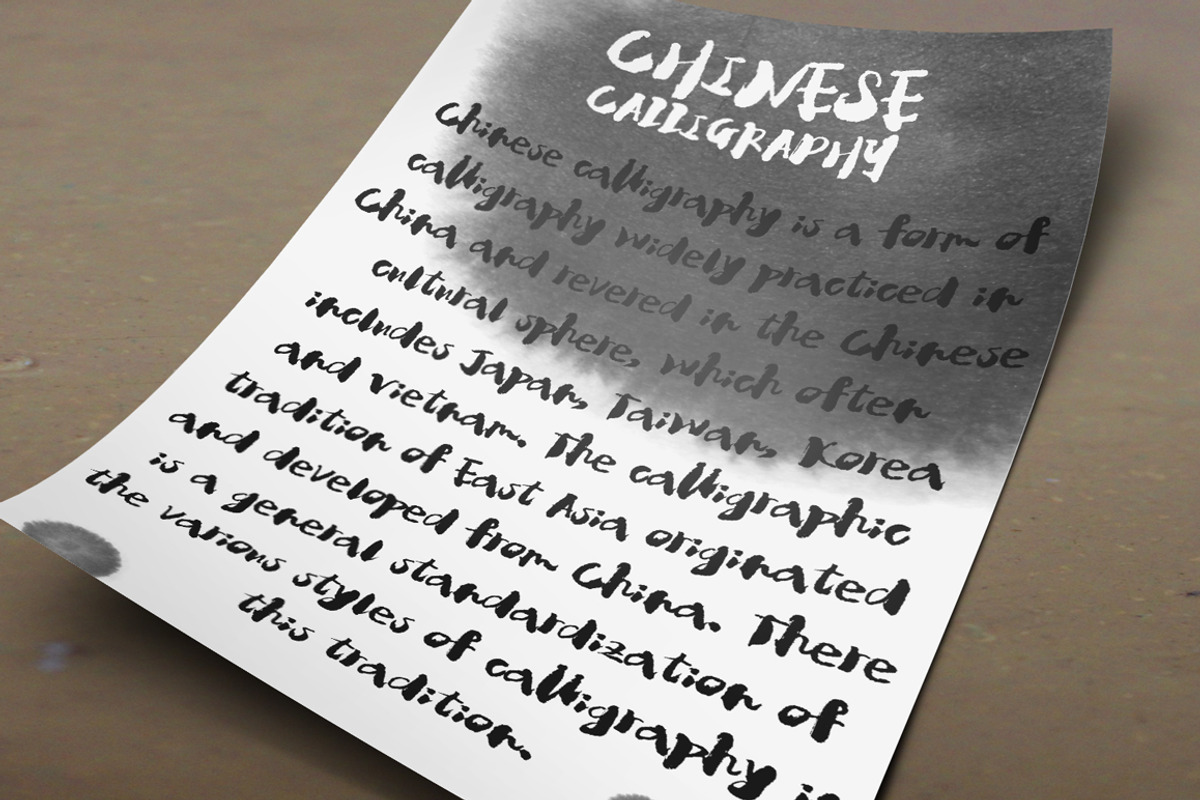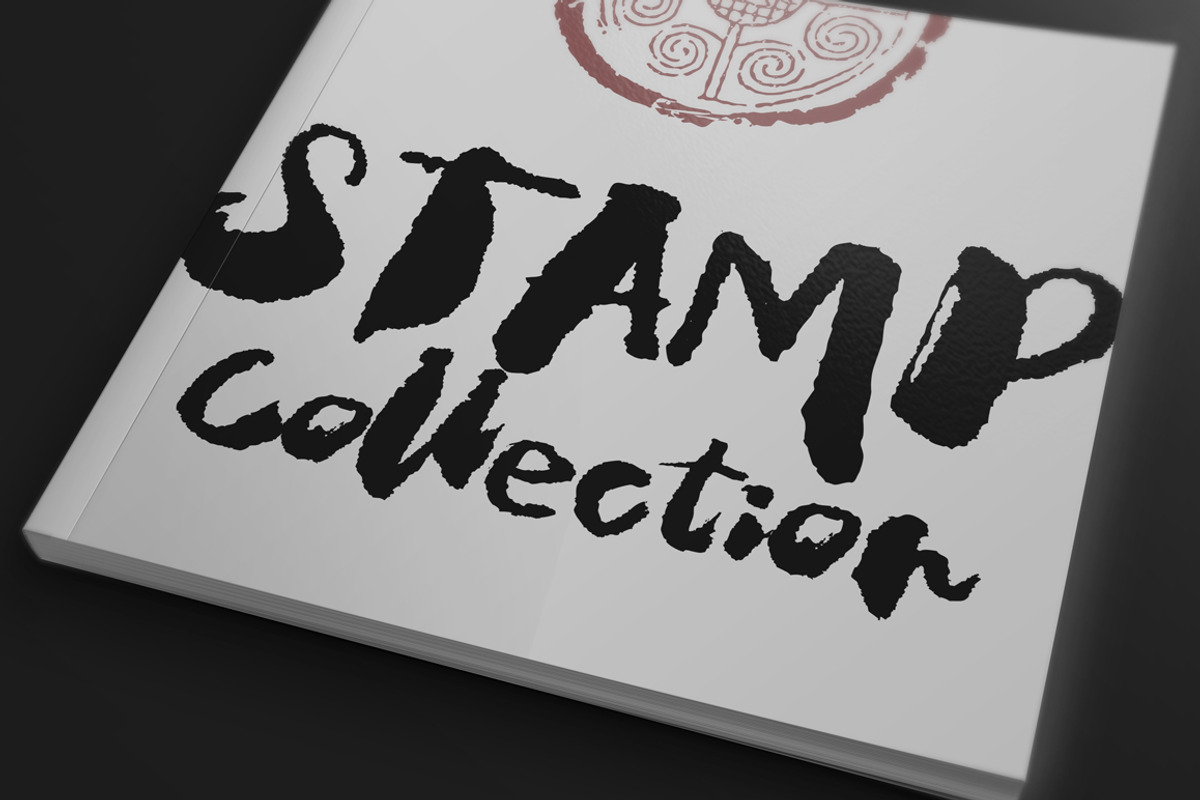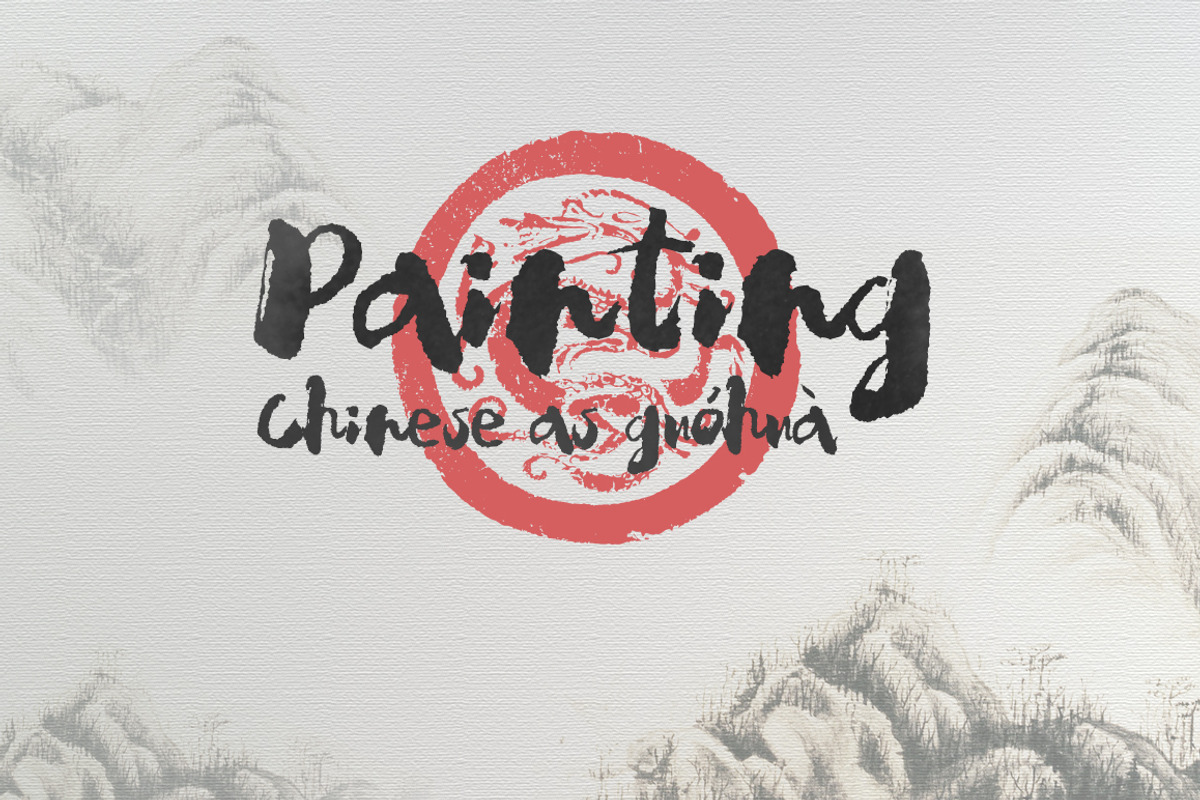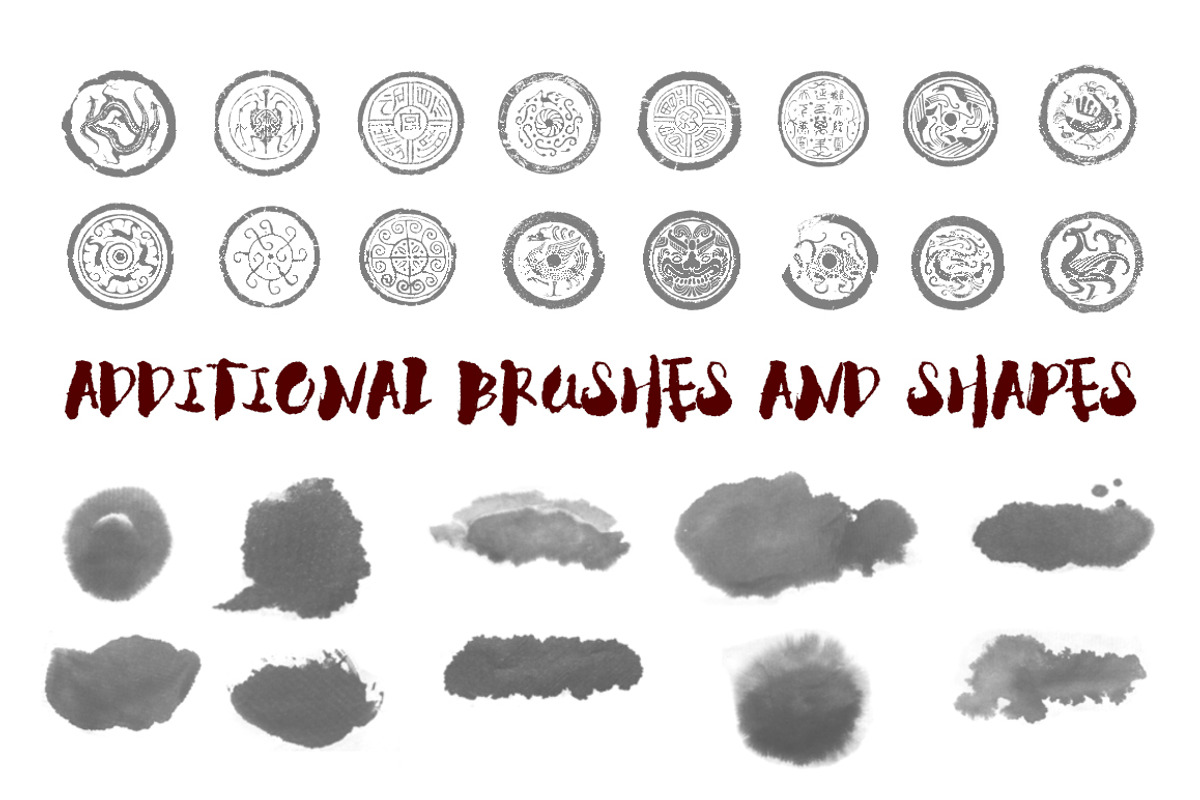
Calligraphy Typeface + BONUS
Calligraphy Typeface + BONUS by alphadesign is a font selected for branding, posters, packaging, typography.
- The Calligraphy font is a calligraphy style, more than 200 glyphs, and some ligatures, another gift Photoshop Brushes and Shapes.
Why Calligraphy Typeface + BONUS is worth a look
Calligraphy Typeface + BONUS by alphadesign fits naturally into Branding, posters, packaging, typography.